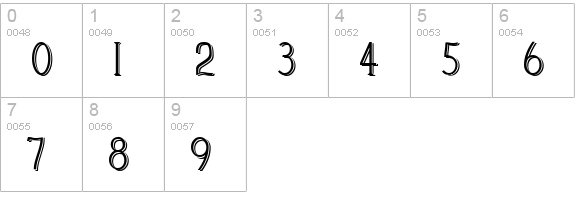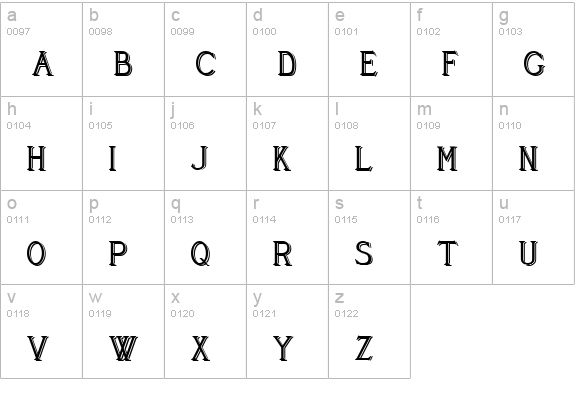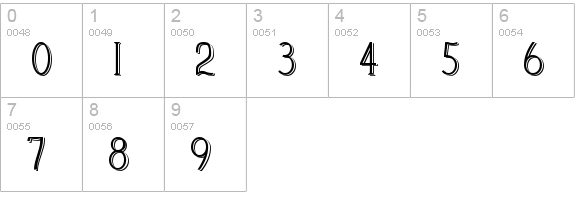
Cleaver's_Juvenia_Blocked Font Details
Cleaver's Juvenia Blocked font is a bold and modern typeface that exudes strength and creativity. With its sharp edges and unique character design, this font is perfect for making a statement in your designs. The blocky style of the letters gives off a sense of power and confidence, making it ideal for headlines, logos, and branding projects. What sets Cleaver's Juvenia Blocked font apart is its versatility - it can be used for a wide range of design projects, from posters and flyers to web design and social media graphics. Whether you're looking to create a striking visual impact or convey a sense of authority, this font has got you covered. And the best part? Cleaver's Juvenia Blocked font is available for free download at FontsMarket.com. So you can start using this impressive typeface in your projects right away without breaking the bank. Don't miss out on the opportunity to add Cleaver's Juvenia Blocked font to your design arsenal and take your creations to the next level.